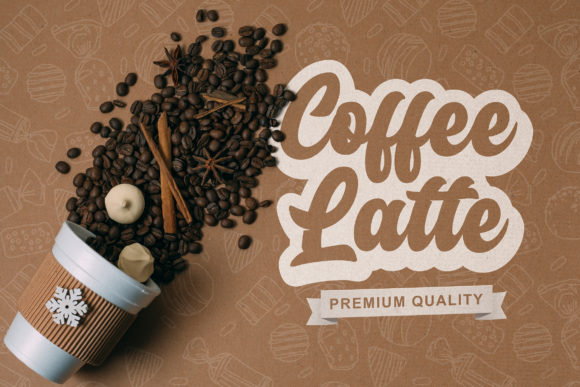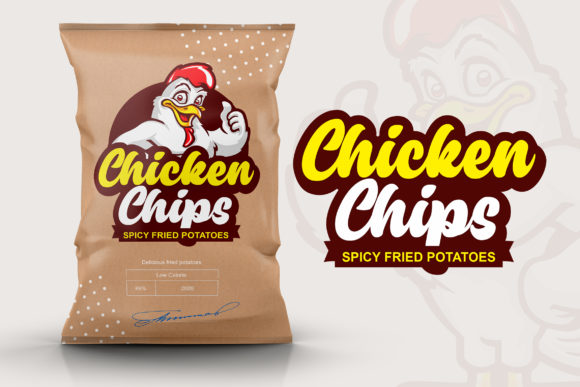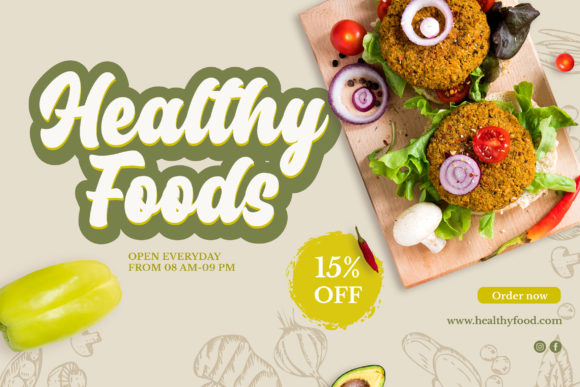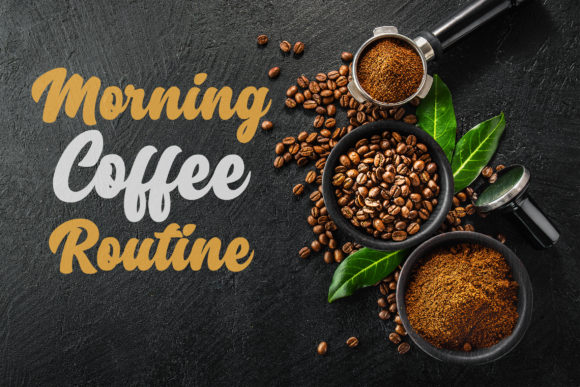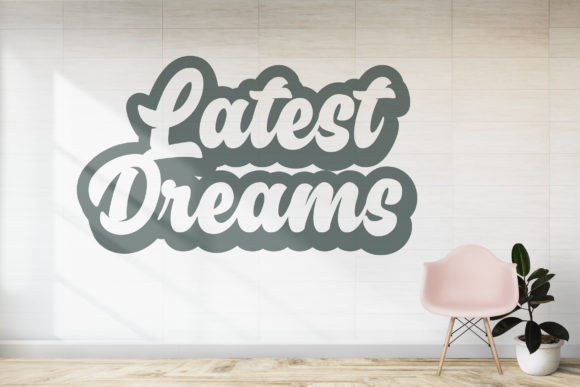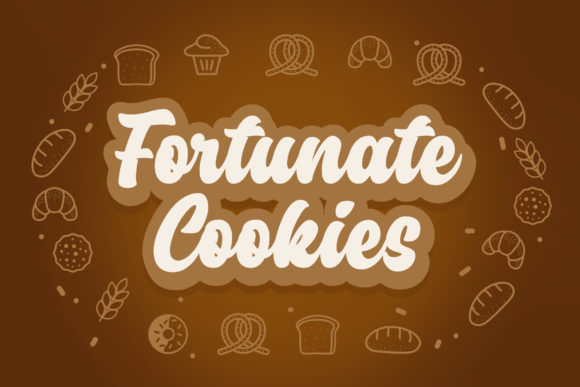
Discover the Charm of Feelin Sweet Font: A Lovely Script Font with a Cute Feel
Are you a designer or crafter looking for a font that exudes nostalgia and charm? Look no further than Feelin Sweet Font, a beautiful script font that is sure to inspire your next creative project. With its cute feel and vintage vibe, this font is perfect for a wide range of applications, from crafting and scrapbooking to graphic design and digital art.
The Story Behind Feelin Sweet Font
Feelin Sweet Font is a carefully crafted script font that is designed to evoke a sense of nostalgia and whimsy. Its unique letterforms and flowing connections make it perfect for creating beautiful, hand-written text that is sure to capture the hearts of your audience. Whether you’re creating a handmade card, a scrapbook page, or a digital graphic, Feelin Sweet Font is the perfect choice.
Key Features of Feelin Sweet Font
- Cute and charming design: Feelin Sweet Font features a unique and adorable design that is sure to add a touch of personality to your projects.
- Nostalgic feel: This font is designed to evoke a sense of nostalgia and vintage charm, making it perfect for projects that require a retro or distressed look.
- Script font: Feelin Sweet Font is a script font, which means that it features flowing connections between letters, creating a beautiful and elegant look.
- Easily readable: Despite its ornate design, Feelin Sweet Font is easily readable, making it perfect for use in a wide range of applications.
Uses for Feelin Sweet Font
Feelin Sweet Font is a versatile font that can be used in a wide range of applications, including:
- Crafting and scrapbooking: Add a personal touch to your handmade cards, scrapbook pages, and other craft projects with Feelin Sweet Font.
- Graphic design: Use Feelin Sweet Font to create beautiful and eye-catching graphics, such as logos, posters, and flyers.
- Digital art: Add a touch of whimsy and charm to your digital art projects, such as illustrations, paintings, and collages.
- Stationery and invitations: Use Feelin Sweet Font to create beautiful and elegant stationery, invitations, and greeting cards.
Tips for Using Feelin Sweet Font
Here are a few tips for getting the most out of Feelin Sweet Font:
- Use it sparingly: Feelin Sweet Font is a bold and eye-catching font, so use it sparingly to add emphasis and personality to your projects.
- Pair it with other fonts: Feelin Sweet Font pairs well with other fonts, such as sans-serif fonts and serif fonts. Experiment with different pairings to find the one that works best for your project.
- Experiment with colors and textures: Feelin Sweet Font looks great in a wide range of colors and textures. Experiment with different colors and textures to find the one that works best for your project.
Feelin Sweet Font is a lovely script font with a cute feel that is sure to inspire your next creative project. With its nostalgic charm and versatile design, this font is perfect for a wide range of applications, from crafting and scrapbooking to graphic design and digital art. So why wait? Download Feelin Sweet Font today and get started on your next creative project!